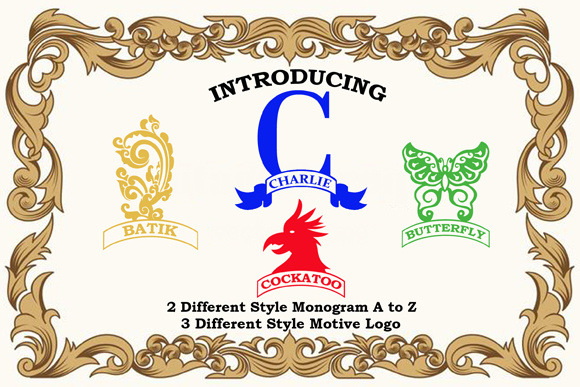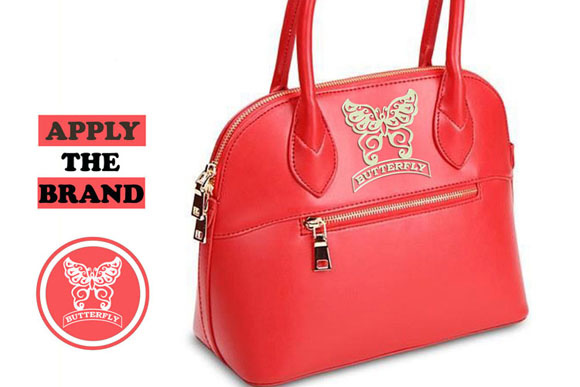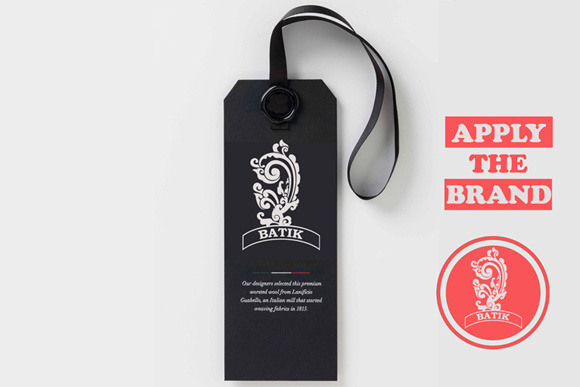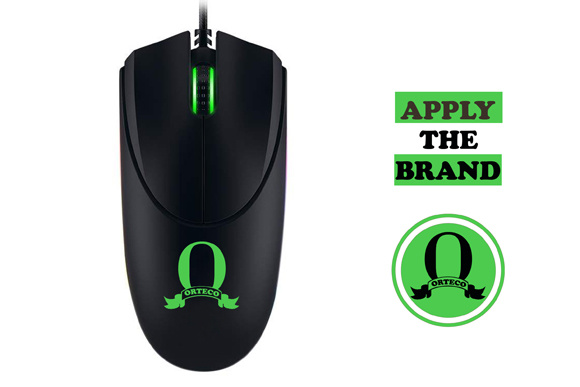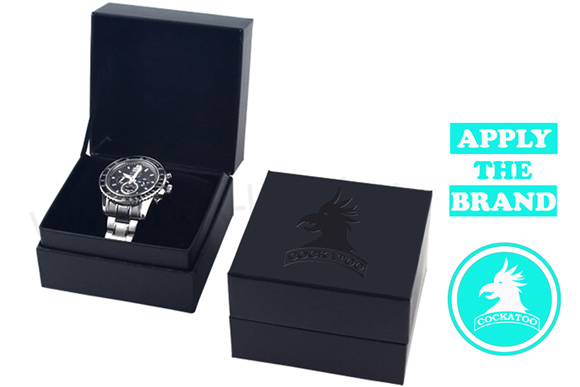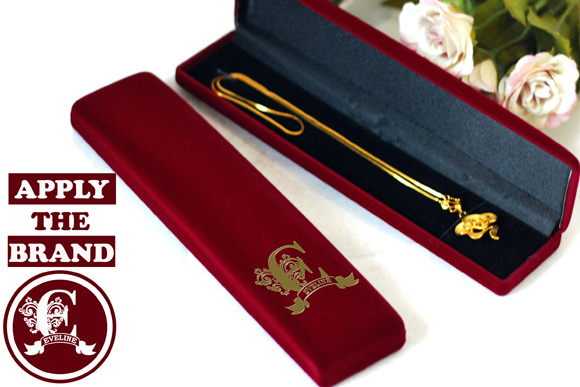
Charlie Monogram Font
About Charlie Monogram Font
Bravo Monogram contains a monogram in 2 different style letters and 3 different motif logo styles. Bravo Monogram is perfect for brand clothes, jewelry brands, fashion brands and much more! Charlie Monogram is beautiful as a stand alone or as a coat for a new lookn Charlie Monogram can easily be colored in.